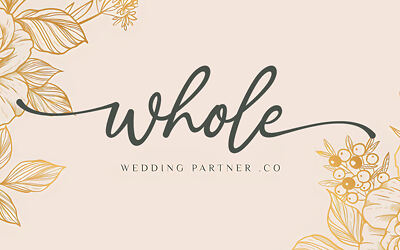
Feb 9, 2025Script & HandwrittenLa Beauties Font La Beauties is a casual and modern handwritten font that comes with a distinctive chic character that adds unique value to the font, perfect for branding, wedding invites cards, and more. Font DetailsDesigned by: MJB LettersWebsiteLicense: Free for personal use Download La Beauties FontFile size: 29.08 KBCreated: February 16, 2025Updated: February 16, 2025 Download Explore similar fonts Arthur Meridian Font Aesthetic Shine Font Hipnotesa Majestory Font Garitson Font Belphia Font Autograph Westhelin Font # Casual# Cursive# Handwriting# Signature More fonts by MJB LettersBelinda Carolyne ScriptAmstella ScriptBelisha FontSophia Morgant ScriptWhole FontSummer Vibes FontBelarose FontNoorlita Script